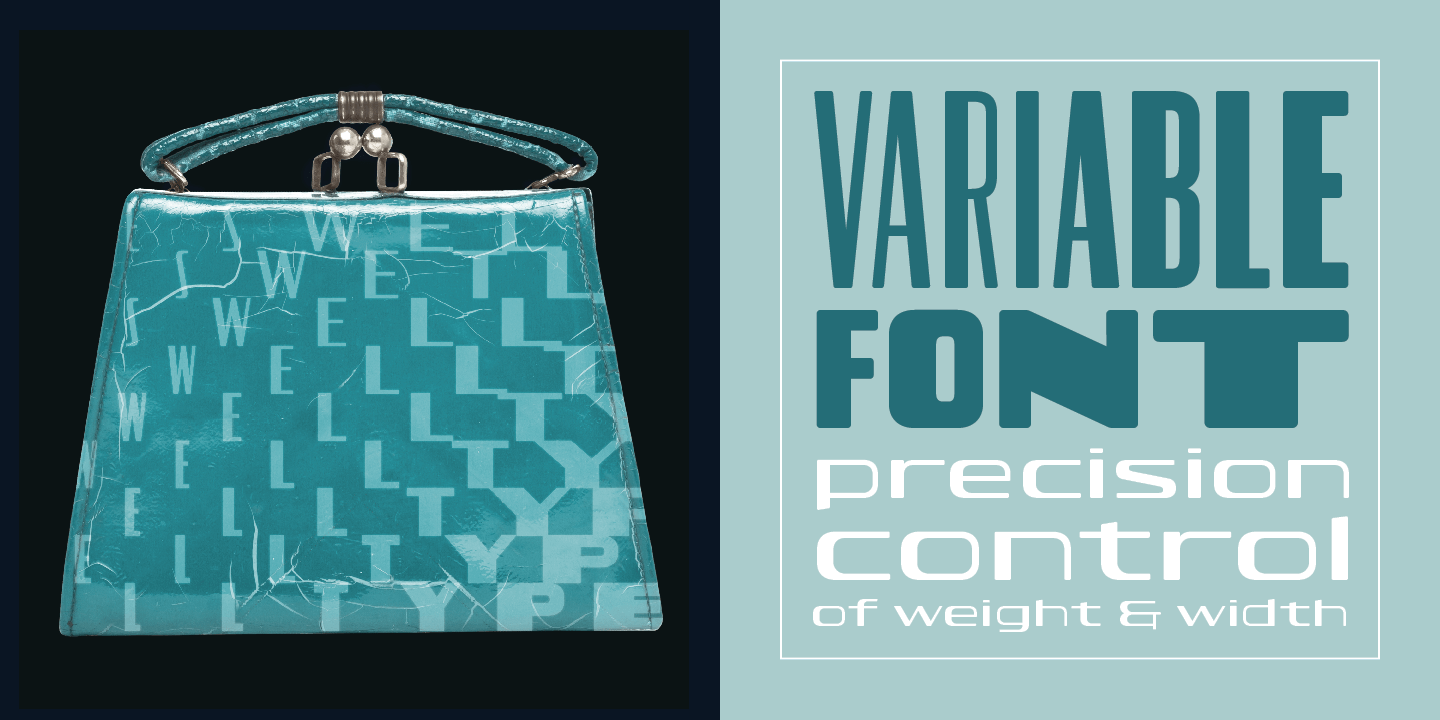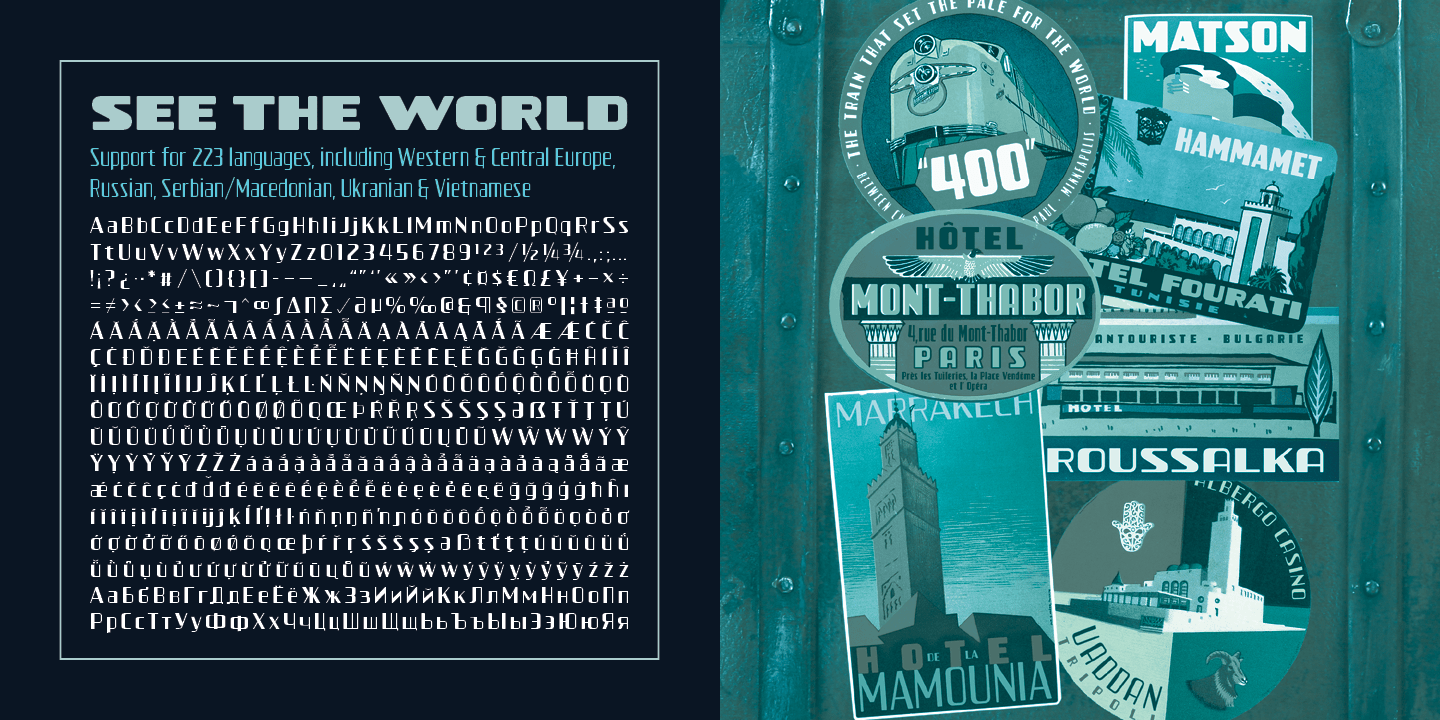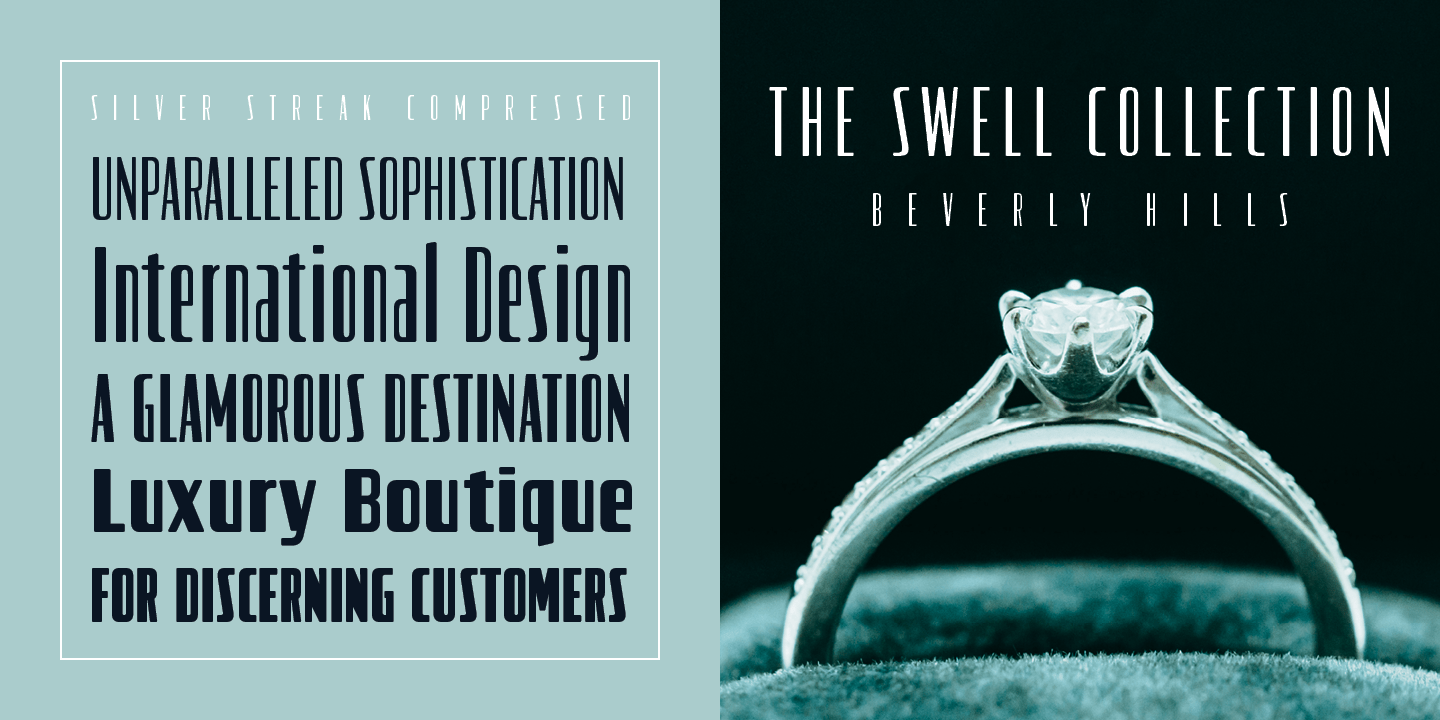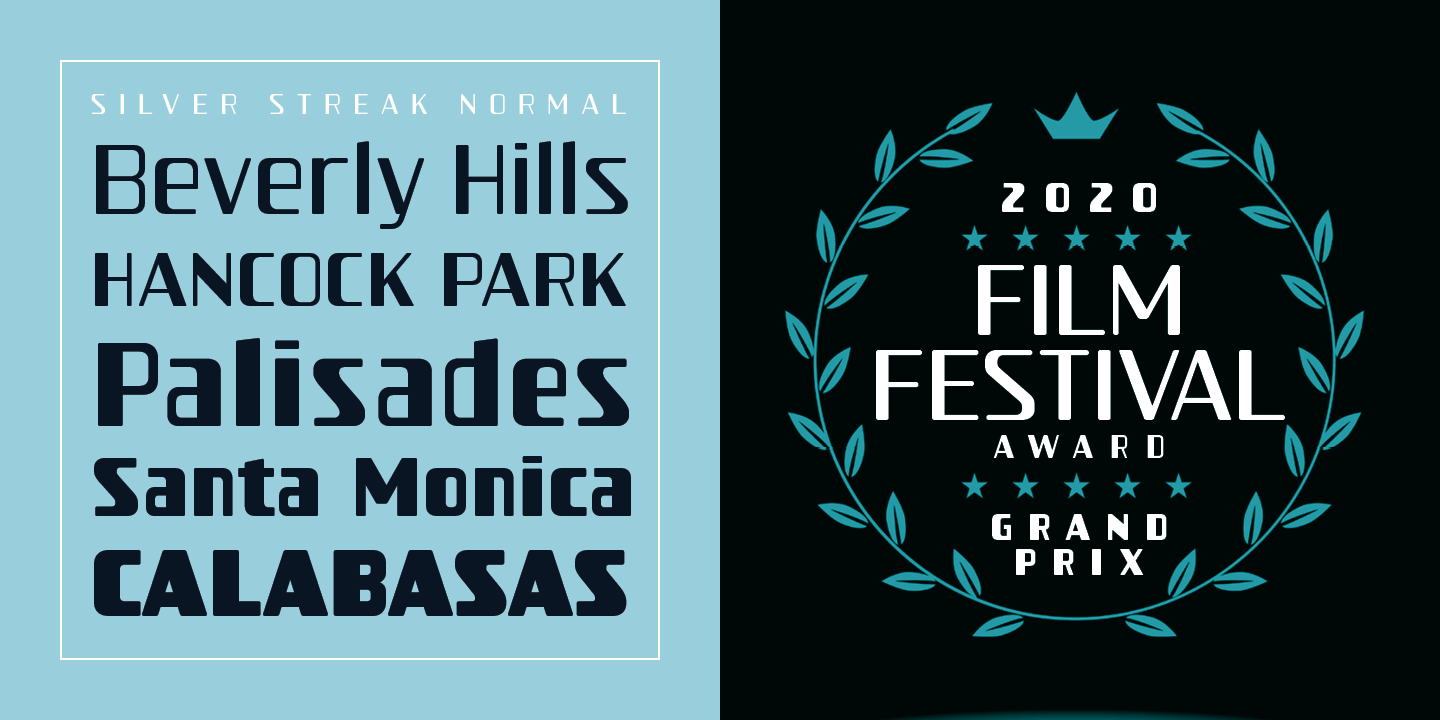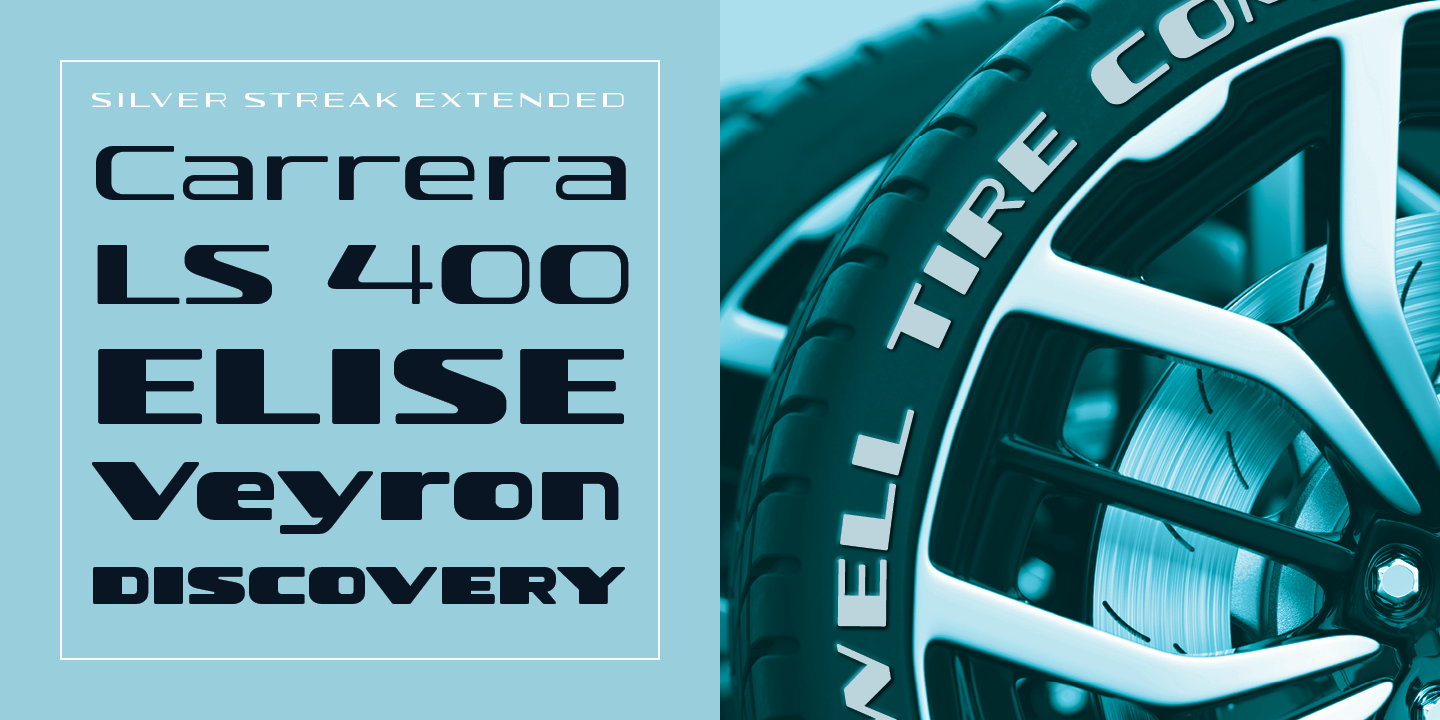
Inspired by the streamlined lettering of trains, cars and advertisements from the 1930s and 1940s, Silver Streak is a font family that combines Art Deco elegance with refined craftsmanship and modern features. Silver Streak\’s contrasting strokes and…